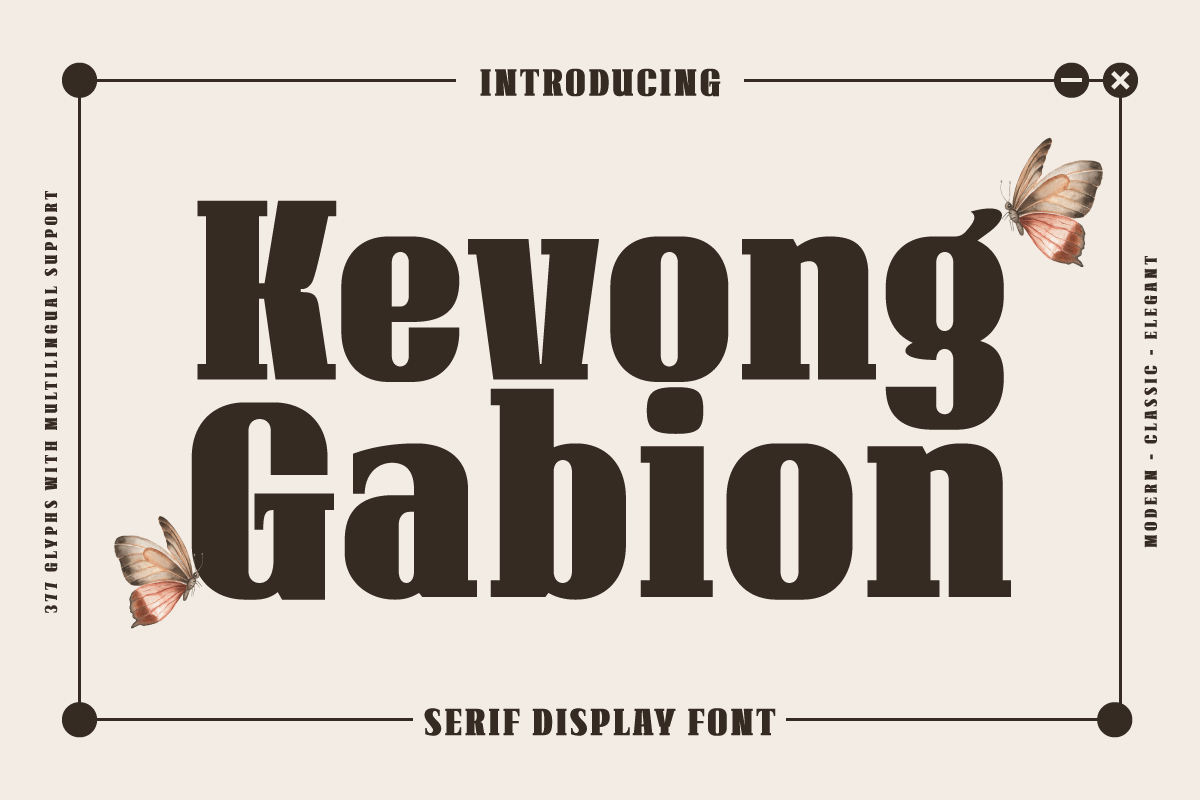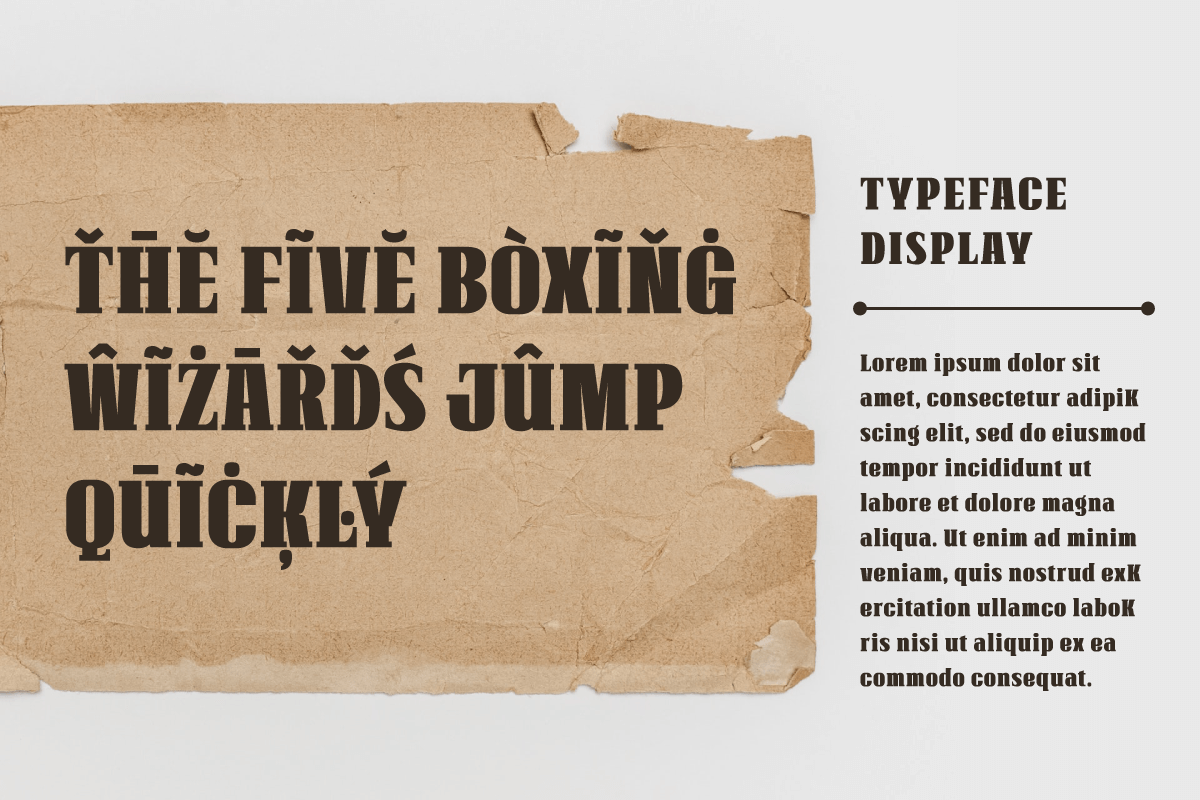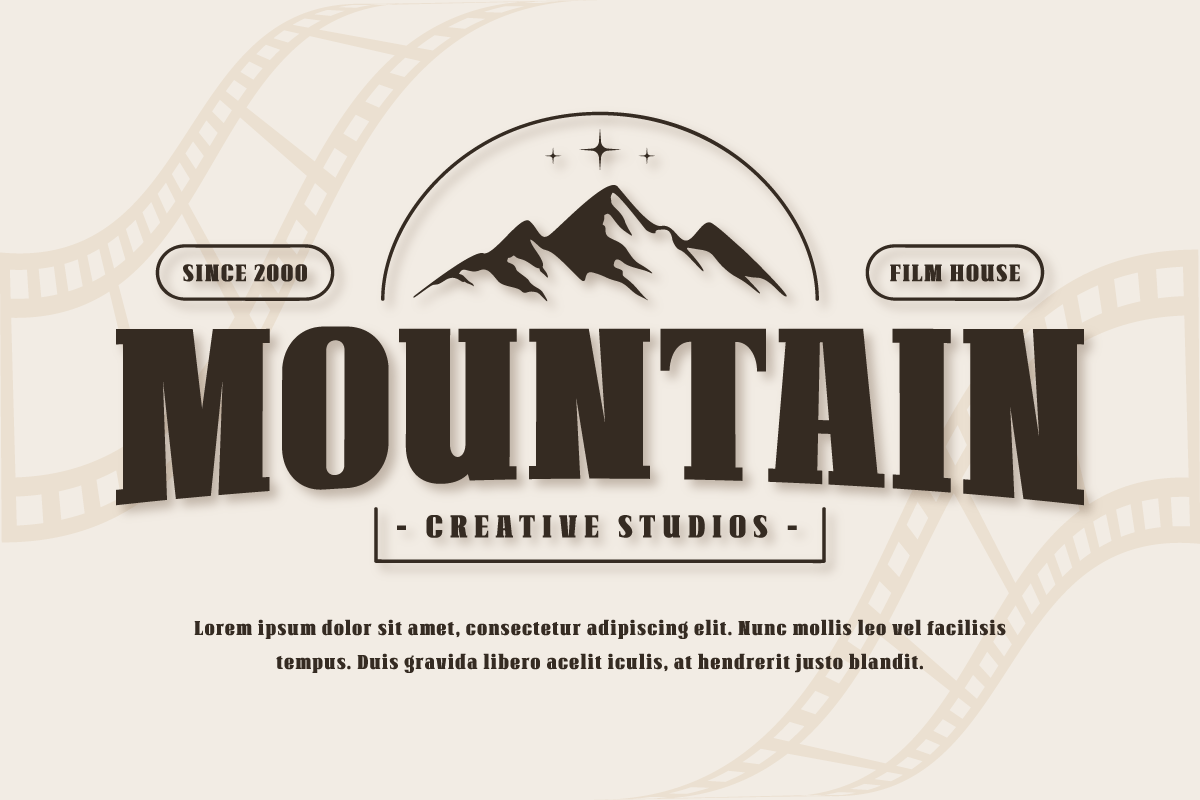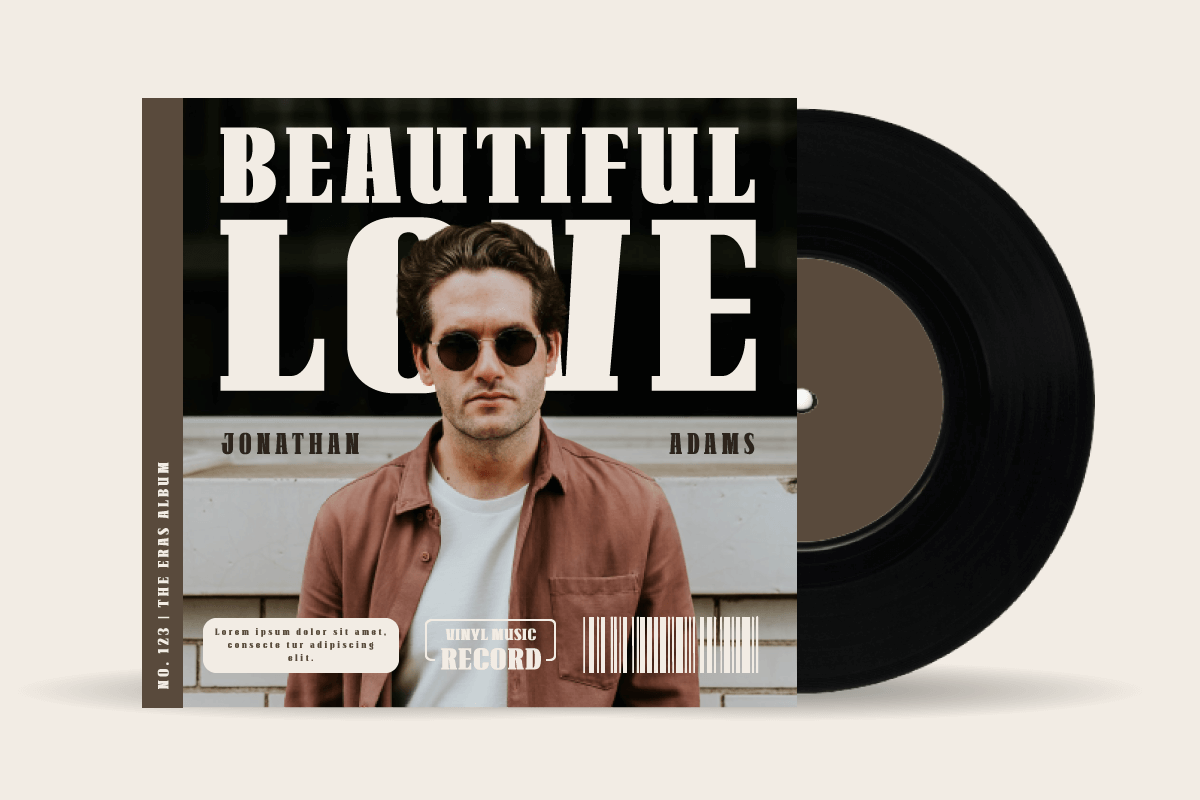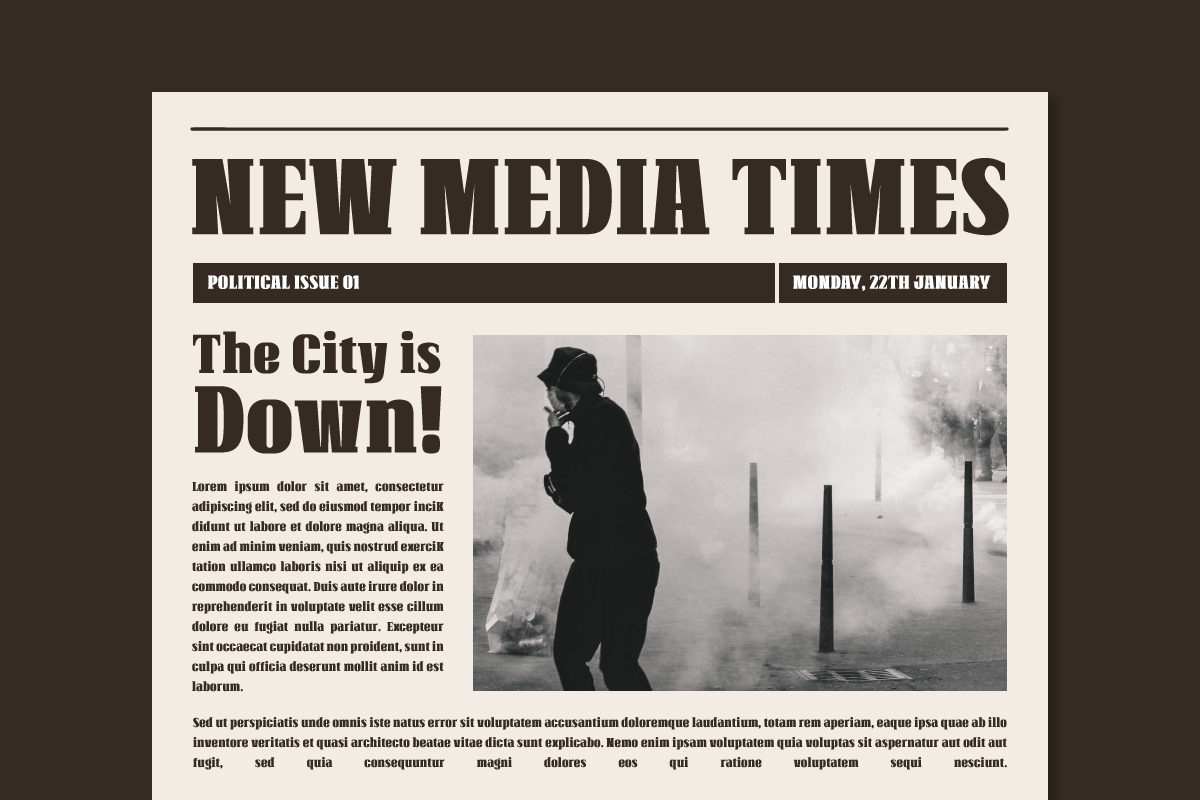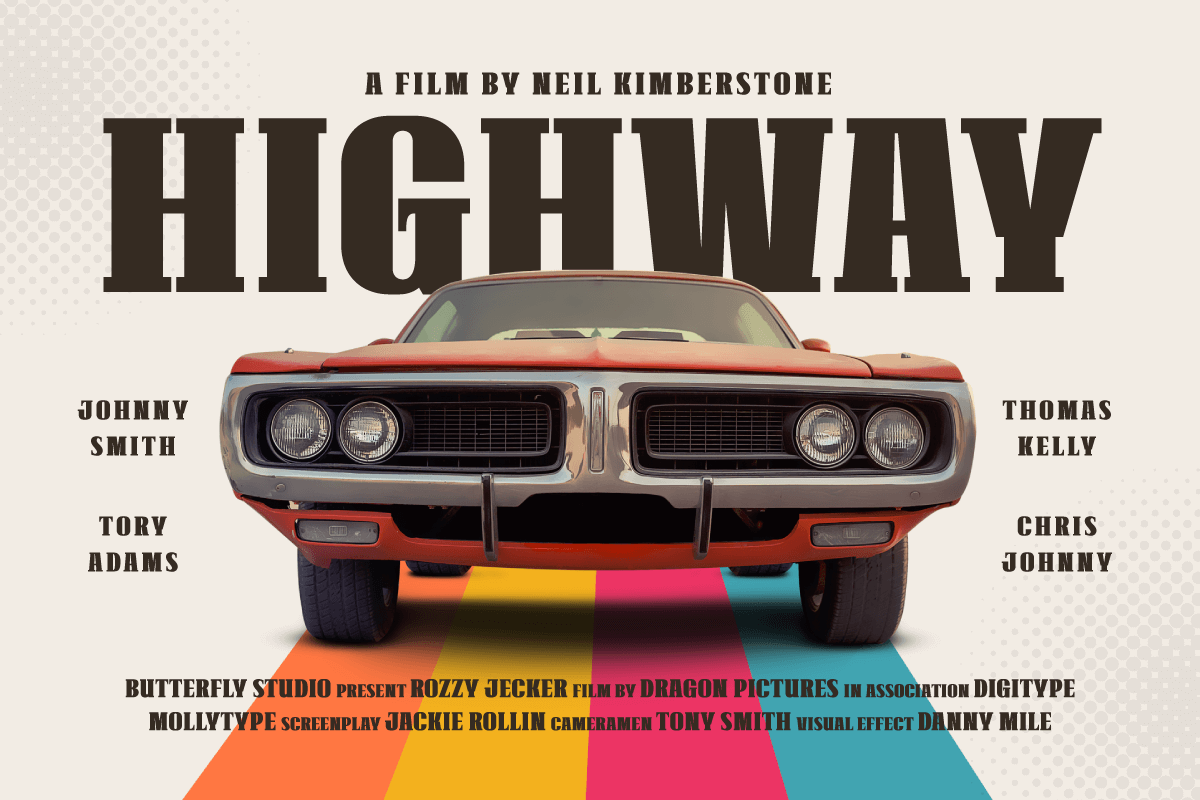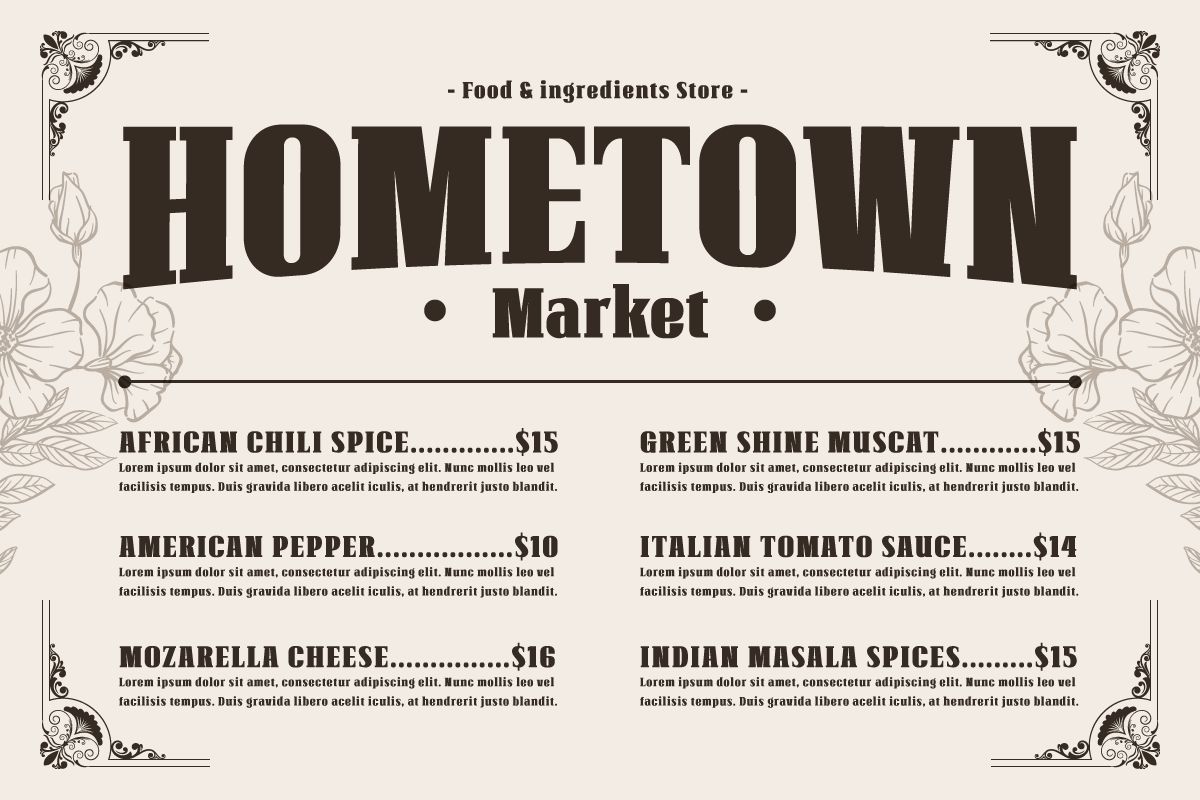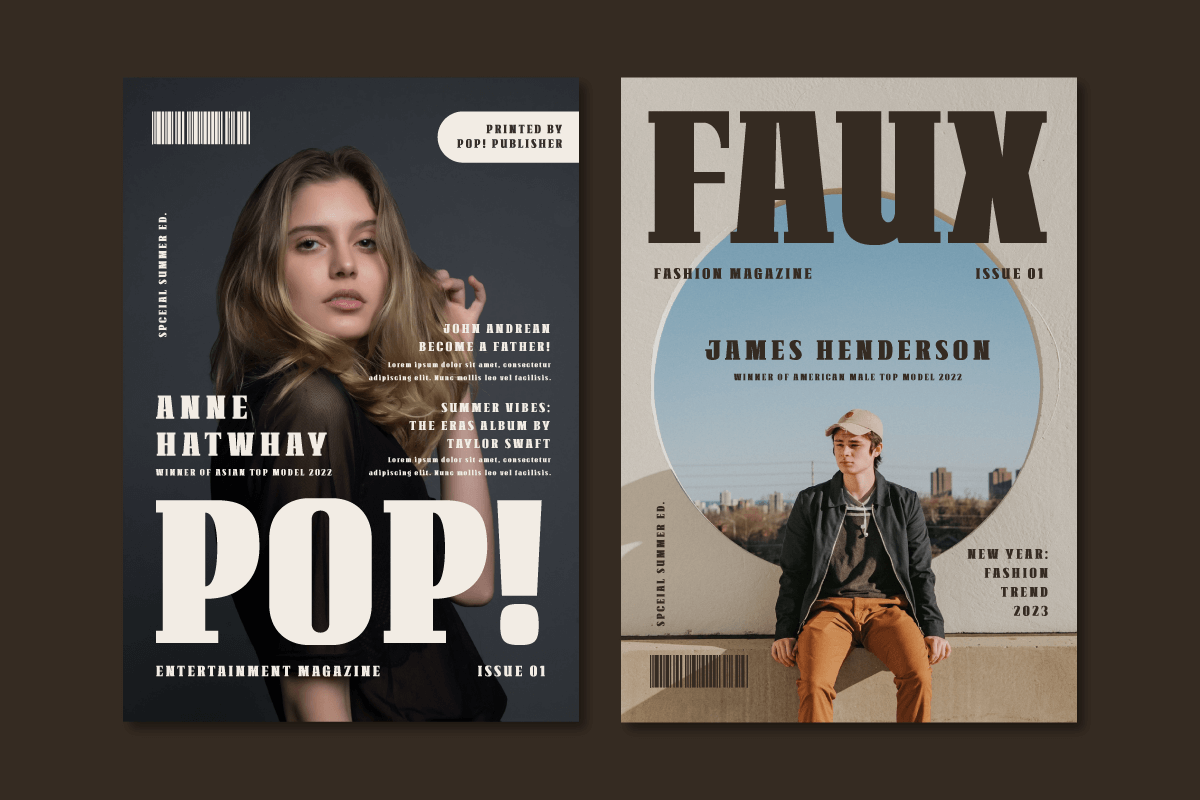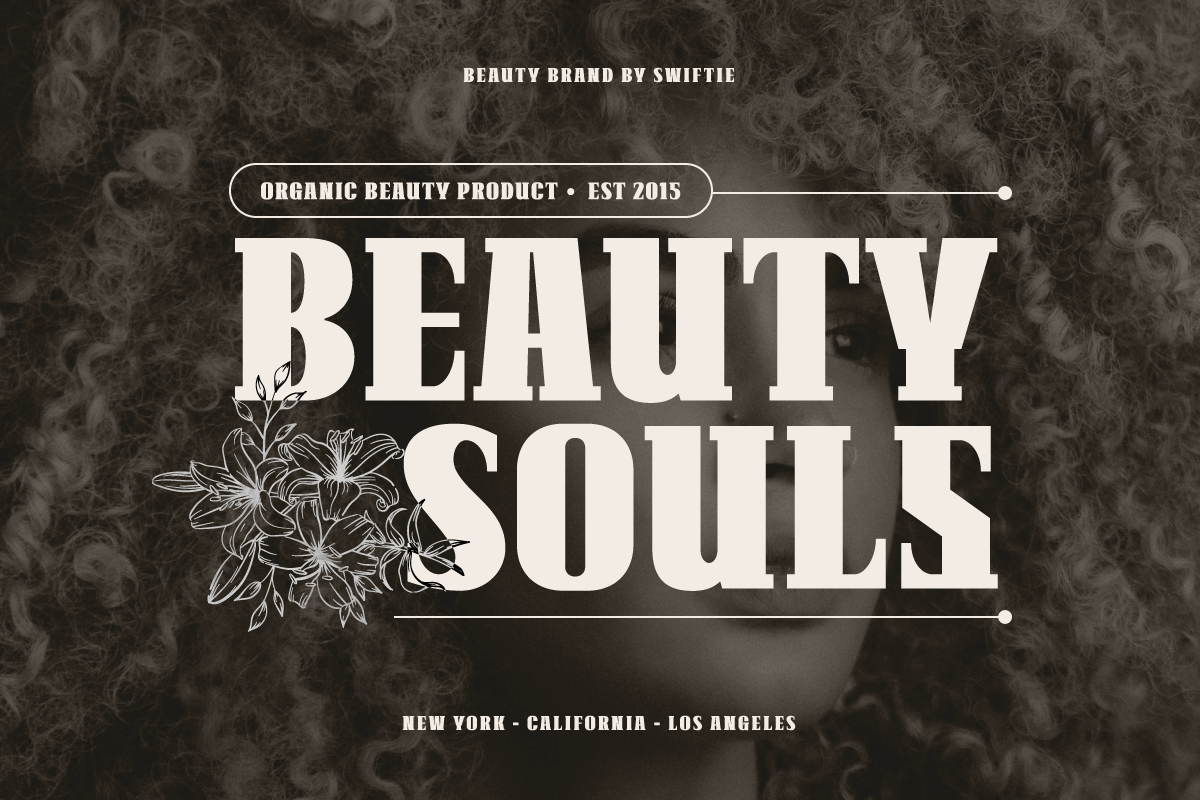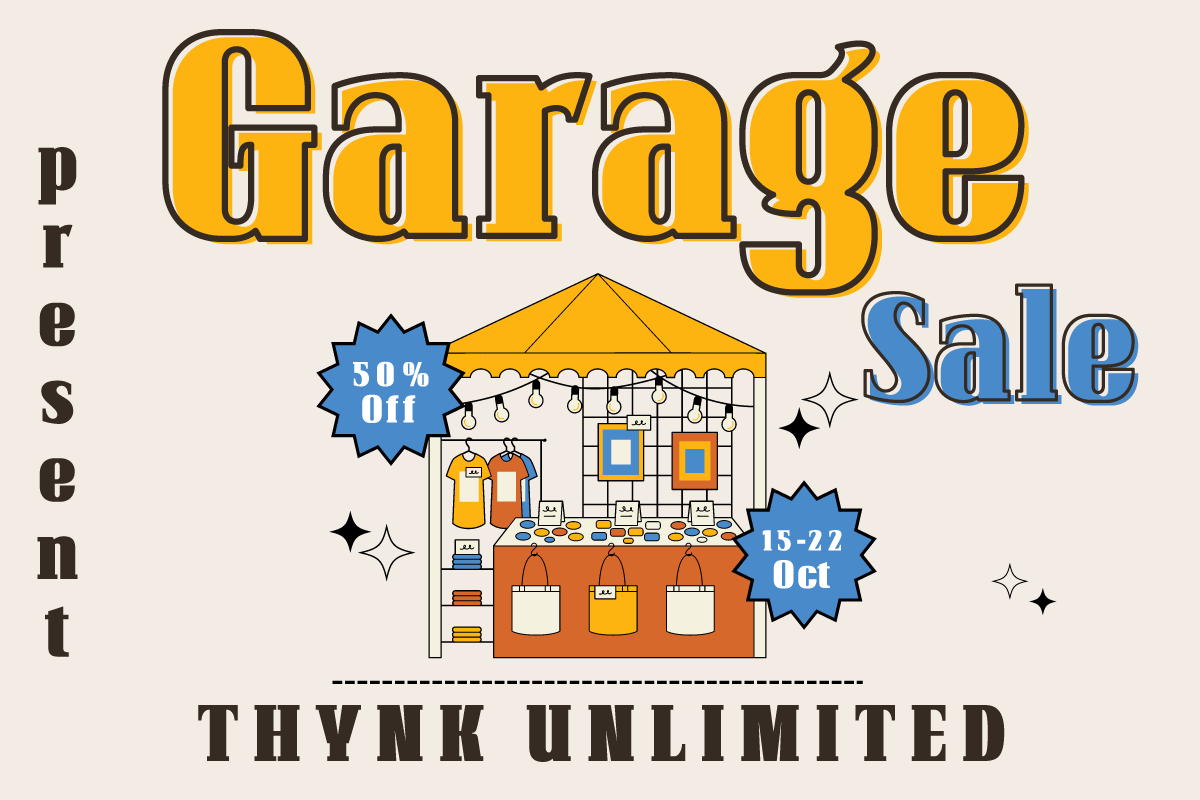
Kevong Gabion – Serif Retro Font
Kevong Gabion Serif font is the epitome of timeless elegance and classic style. The font boasts a sleek and sophisticated design that is perfect for a range of projects, from branding to editorial design. Its classic serif form is perfect for adding a touch of sophistication to your work.
In addition to its timeless design, Kevong Gabion Serif font is also incredibly versatile. It comes with a wide range of language support, making it the ideal choice for projects with a global audience. Whether you’re designing a website or creating a marketing campaign, this font is sure to impress.
Overall, Kevong Gabion Serif font is a must-have for any designer who values classic design and versatility. Its timeless elegance and wide range of language support make it the perfect choice for a range of projects. So why not add it to your font library today and take your designs to the next level?